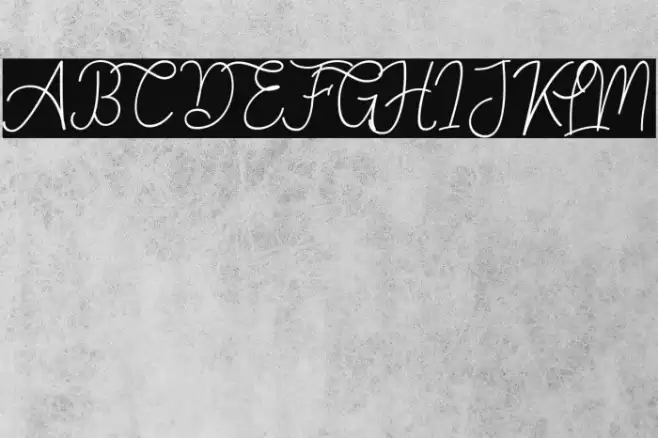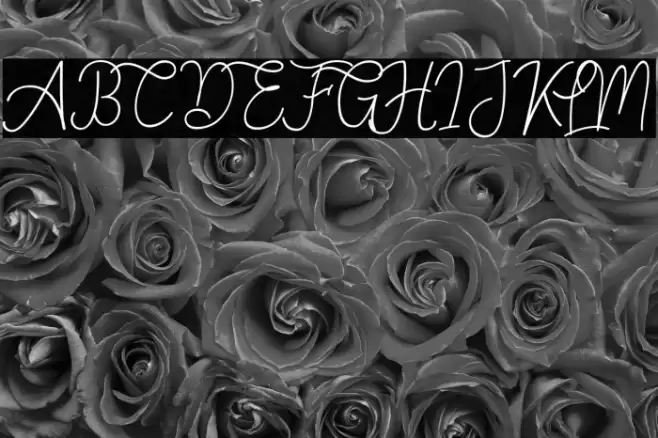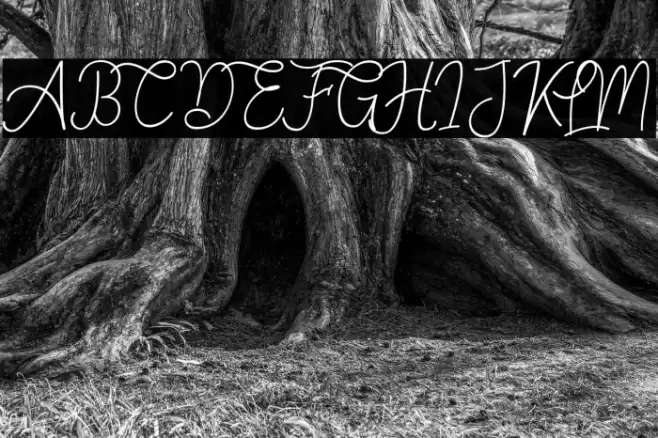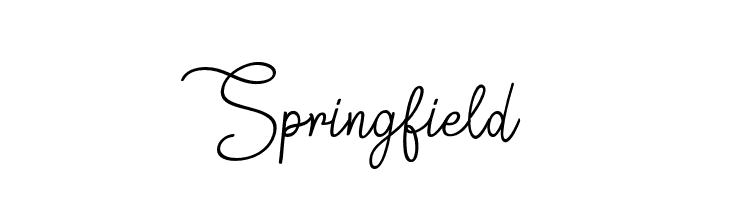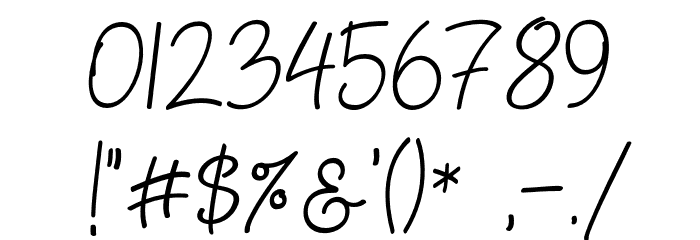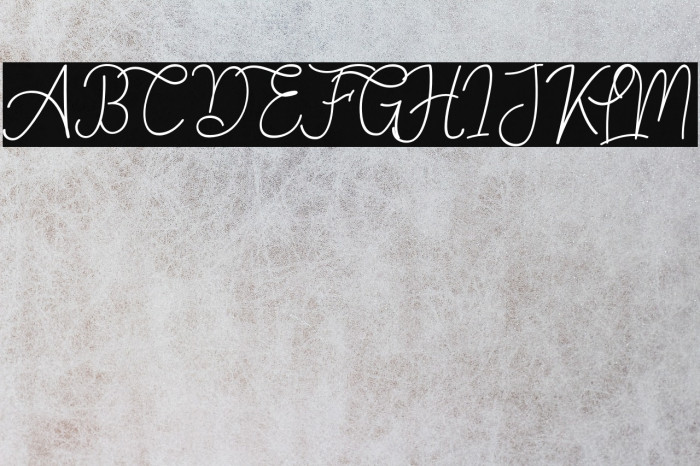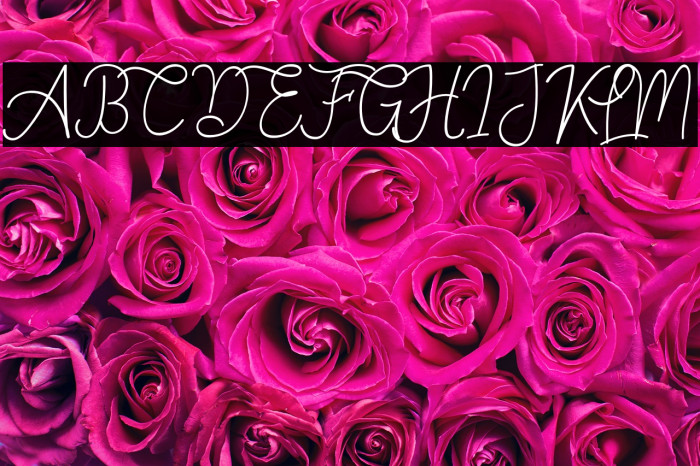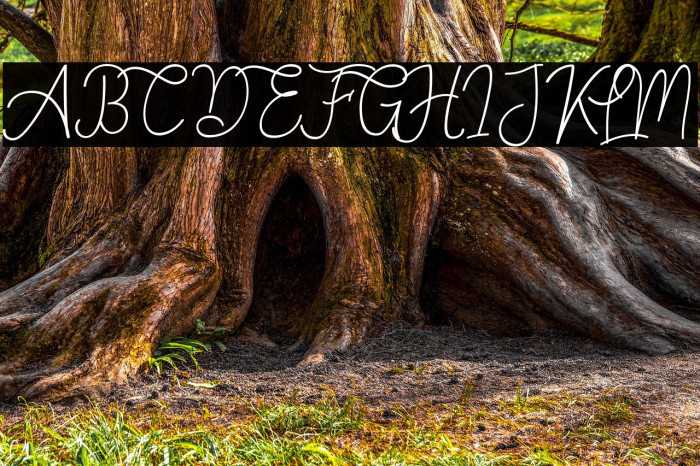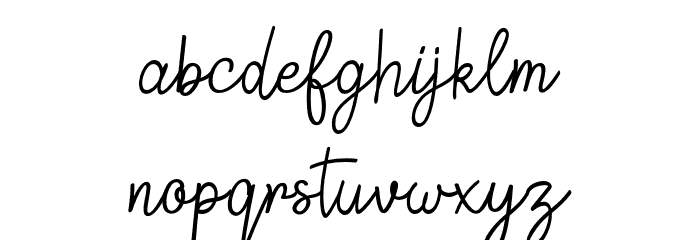
Springfield Font
Springfield Description
This font exhibits a lively and flowing script style, characterized by its elegant and fluid letterforms. The uppercase letters are tall and slender, with graceful curves and loops that give a sense of movement and sophistication. The lowercase letters maintain a consistent flow, with smooth connections between each character, enhancing its cursive nature. The numerals are distinct and easy to read, complementing the overall style with their rounded and slightly elongated shapes. Special characters are thoughtfully designed to match the script's aesthetic, ensuring a cohesive appearance across all text. This font is perfect for projects that require a touch of elegance and personality.
A lively and flowing script font with elegant, fluid letterforms from Uncategorized fonts.
- Proposed Projects: Ideal for wedding invitations, greeting cards, personal branding, and elegant packaging designs.
- Overall Style: Elegant, Decorative
- Use Case: Headlines, Invitations, Personal Branding